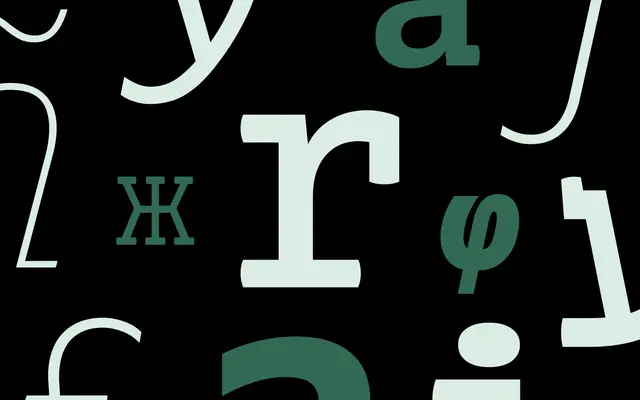
Lexia Mono
Dalton Maag · Ron Carpenter, Ignacio Casco Guijarro, Elí Castellanos, Spike Spondike · 2024
Lexia Mono specimen from Dalton Maag
A humanist slab-serif monospace built for code and tabular layouts, pairing directly with Lexia.
A monospace slab-serif by Ron Carpenter, Ignacio Casco Guijarro, Elí Castellanos and Spike Spondike that brings Lexia's humanist warmth to fixed-width settings. Dalton Maag describes the rhythm and even colour as remarkably easy to read, with Weight and Italic axes in the variable font. Pairs with Lexia for design systems that need text and code to share a voice.
Dalton Maag classifies Lexia Mono as a monospace humanist slab-serif crafted for coders and designers working with tabular layouts, with extensive Weight and Italic variable font axes. Pairs with Lexia.